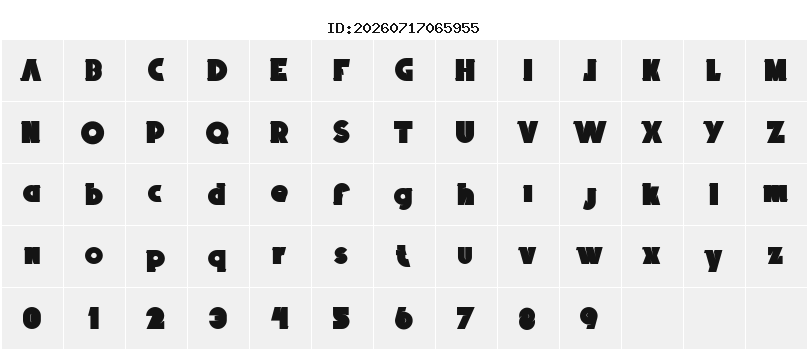
Broken Records 45 Preview
• Font Name: Broken Records 45
• Full Font Name: Broken Records 45
About Broken Records 45.ttf
Broken Records 45.ttf is a modern, elegant sans-serif font designed for ultimate readability and visual harmony. Perfect for branding, headlines, web design, and print materials.